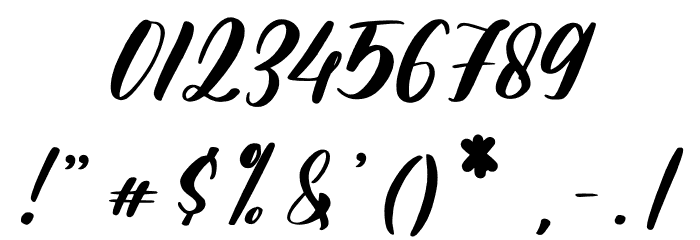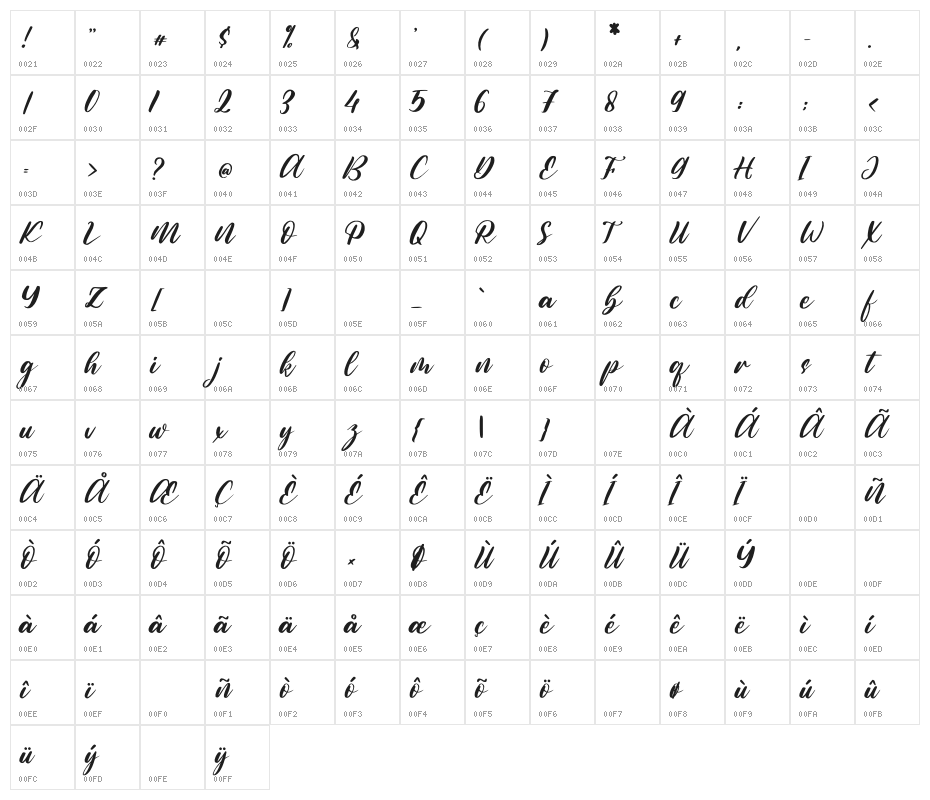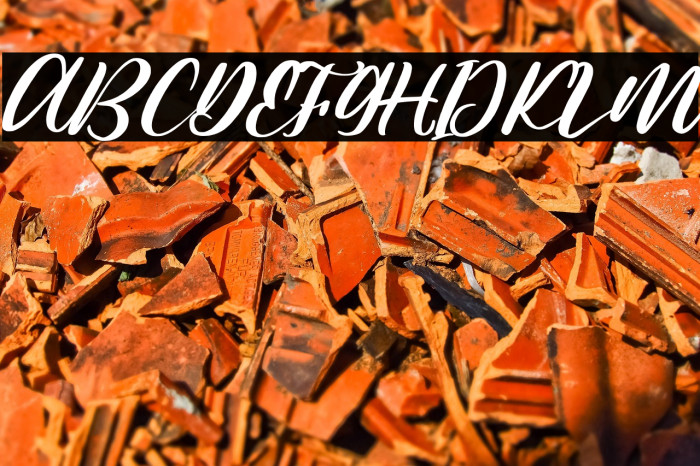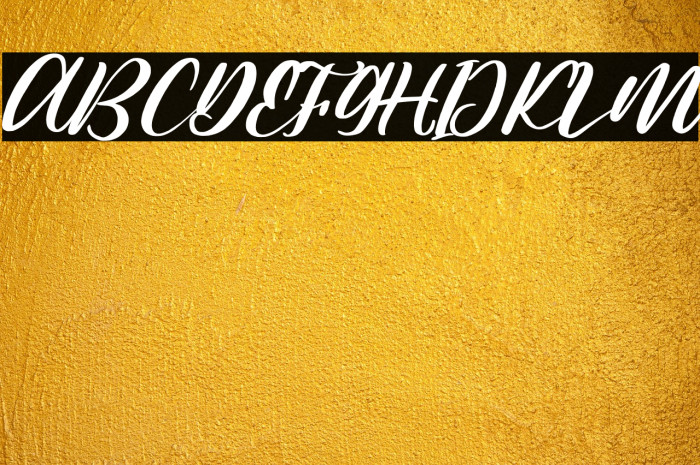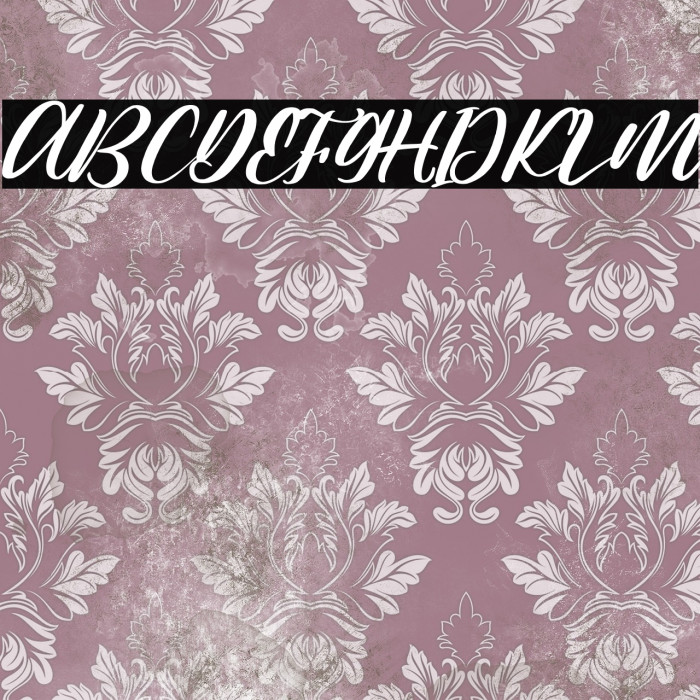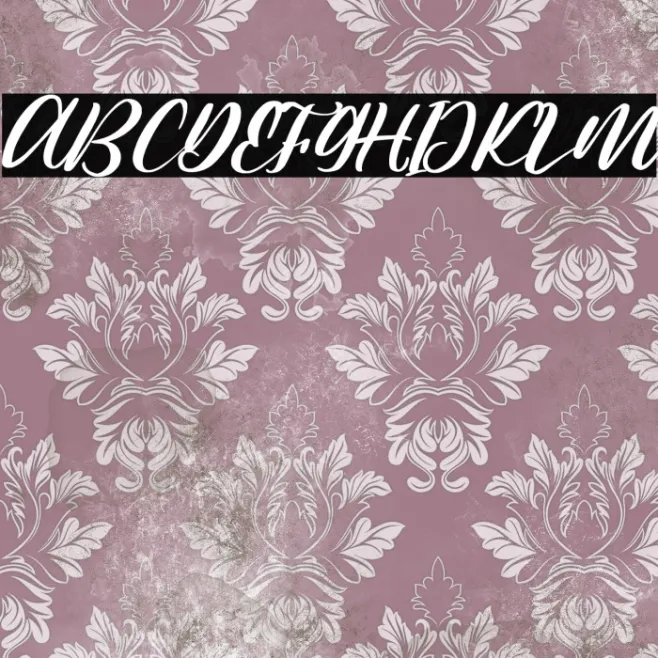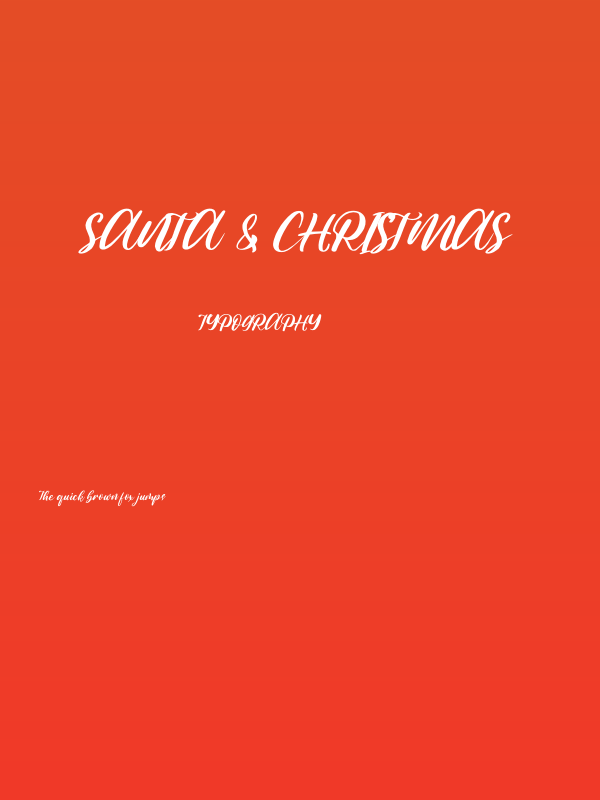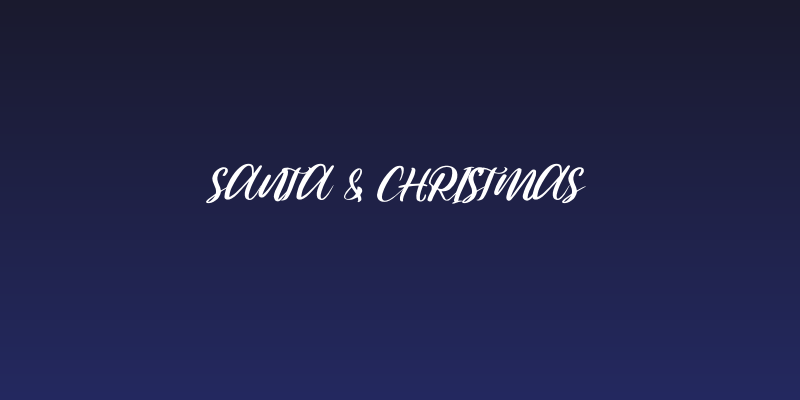
Santa & Christmas Font
This font exudes a festive and elegant charm, with its flowing script style that mimics the fluidity of handwriting. The letters are connected in a cursive manner, creating a sense of continuity and grace. Each character is crafted with a bold stroke, adding a sense of robustness and presence. The uppercase letters are particularly ornate, with sweeping curves and flourishes that enhance their decorative appeal. The lowercase letters maintain a consistent style, ensuring readability while preserving the font's artistic flair. Numbers and special characters are designed to complement the overall aesthetic, making this font versatile for various applications. Its bold and dynamic appearance makes it ideal for capturing attention and conveying a sense of celebration.
A bold, festive script font with elegant, flowing characters.
- Font: Santa & Christmas
- Proposed Projects: Ideal for holiday cards, festive invitations, branding for seasonal products, and decorative signage.
- Category: Script
- Use Case: Headlines, Logos, Invitations